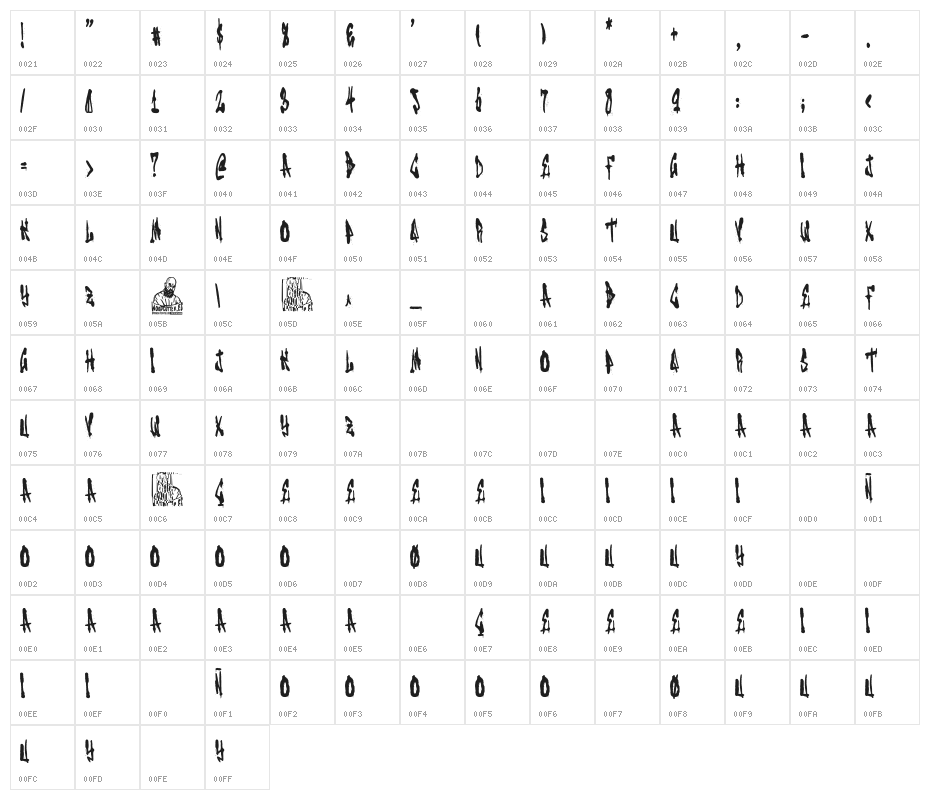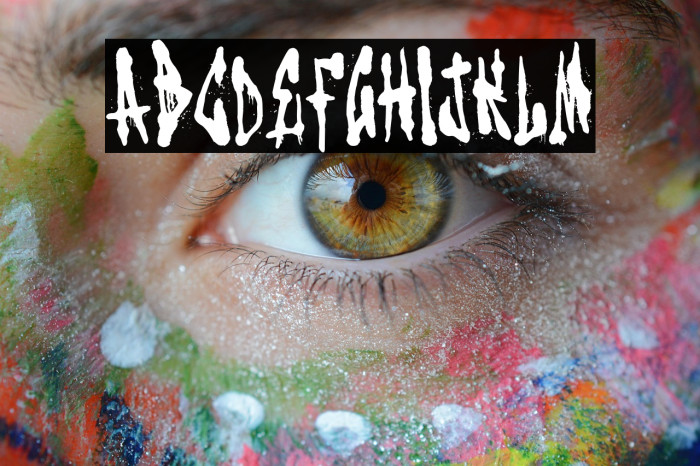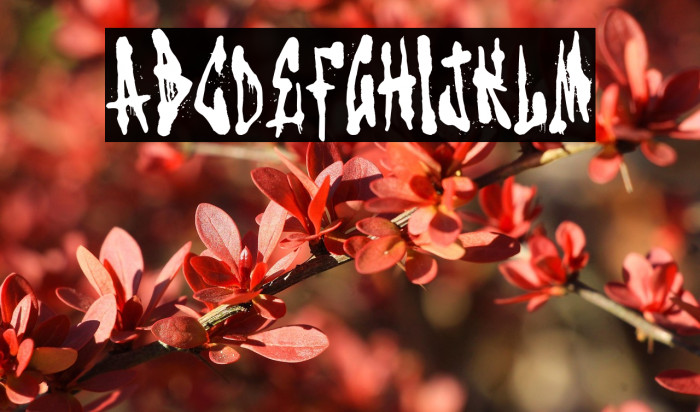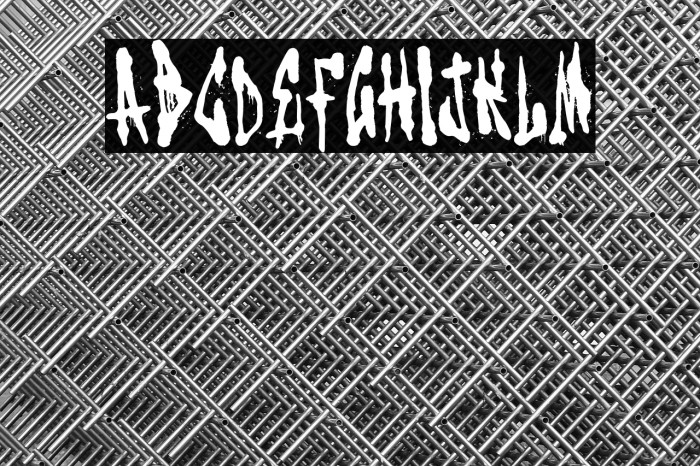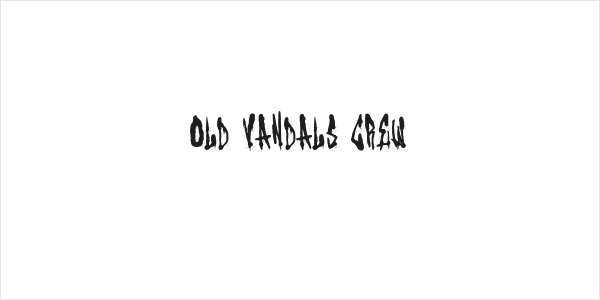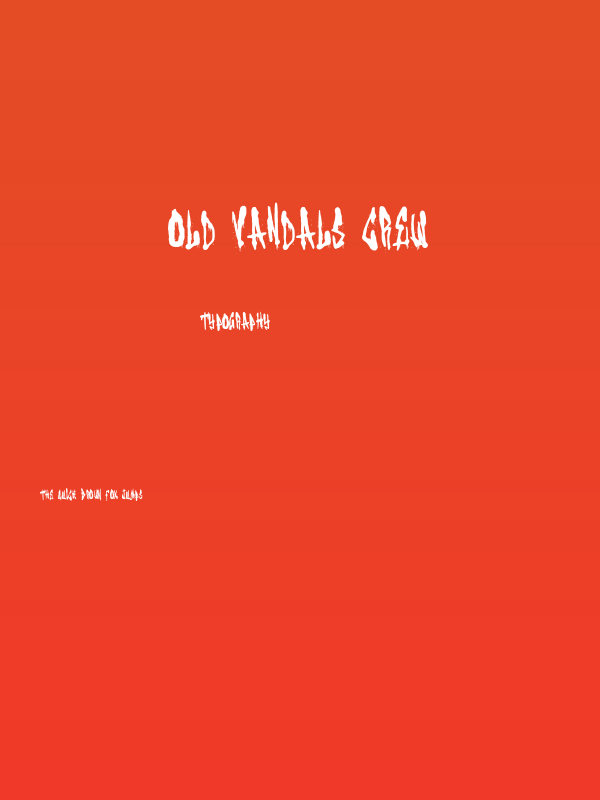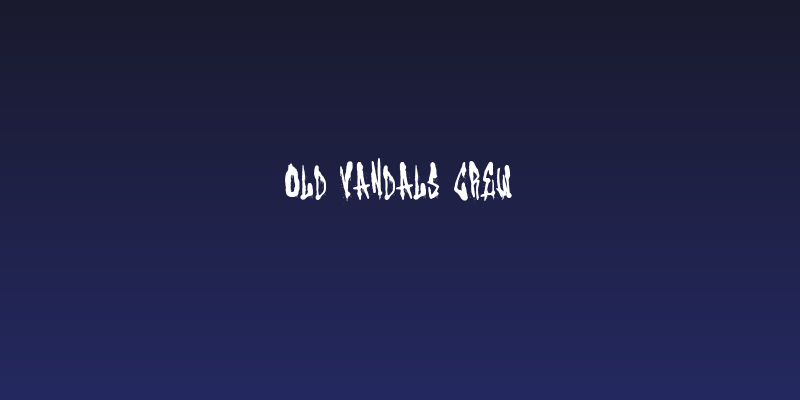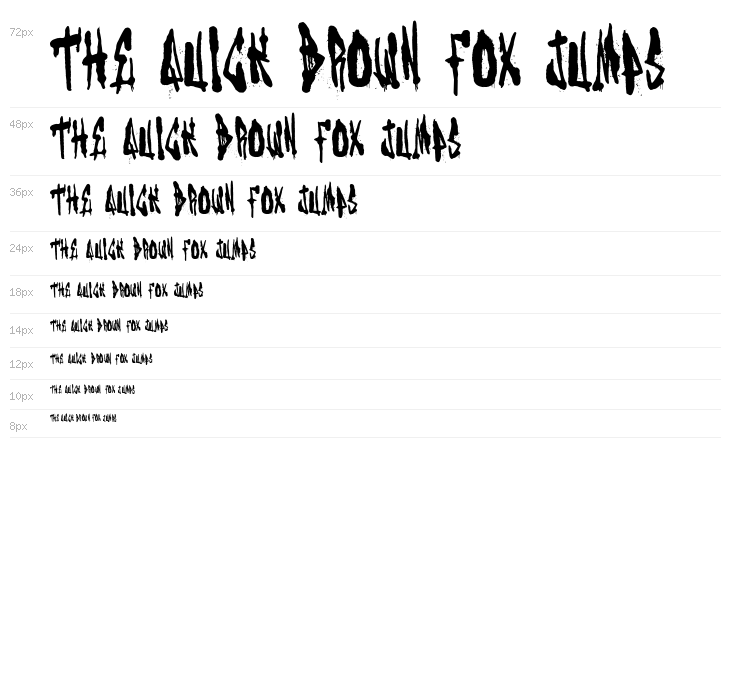
Old Vandals Crew Font
Old Vandals Crew Description
This font exudes a raw, urban aesthetic reminiscent of graffiti art. The characters are bold and irregular, with a hand-painted appearance that gives them a dynamic and energetic feel. The strokes are thick and uneven, adding to the rebellious and edgy vibe. The uppercase and lowercase letters maintain a consistent style, while the numbers and special characters integrate seamlessly into the overall design. This font captures the essence of street art, making it perfect for projects that require a bold and unconventional look.
| Overall Style | Urban, Graffiti, Edgy |
| Use Case | Logos, Posters, Album covers |
| Proposed Projects | Ideal for streetwear branding, music album covers, urban-themed posters, and graffiti art projects. |